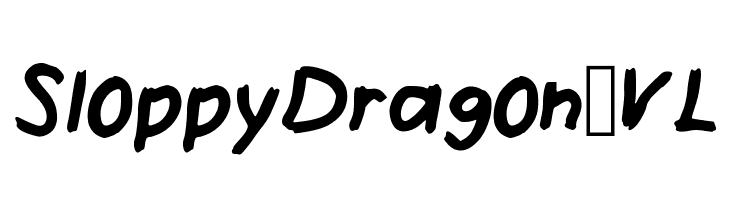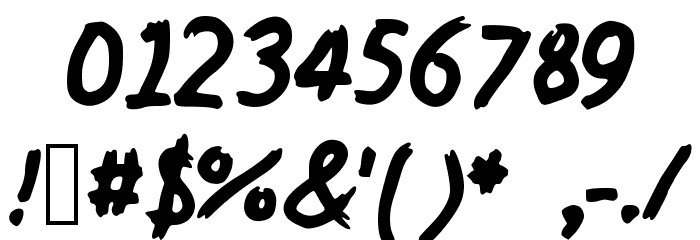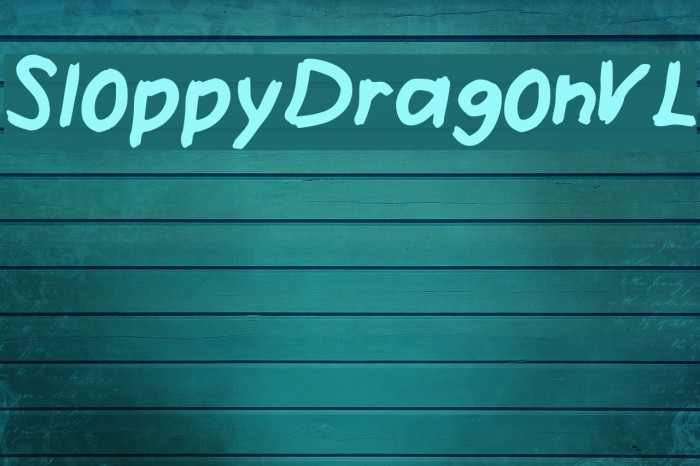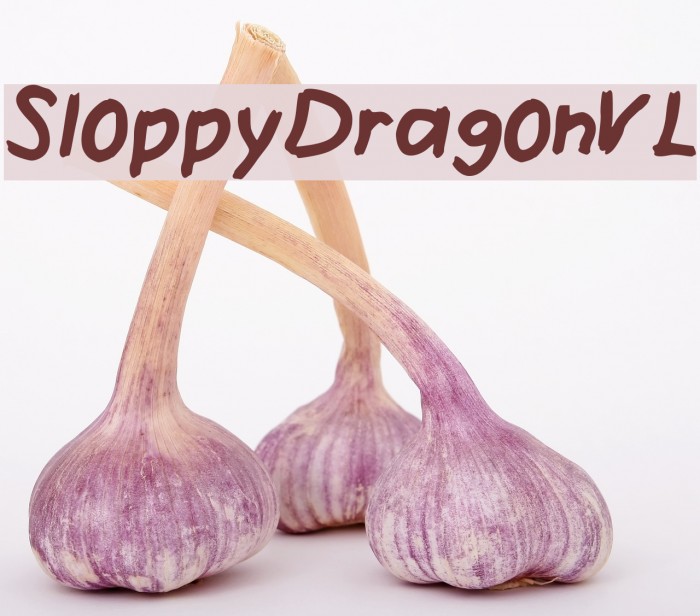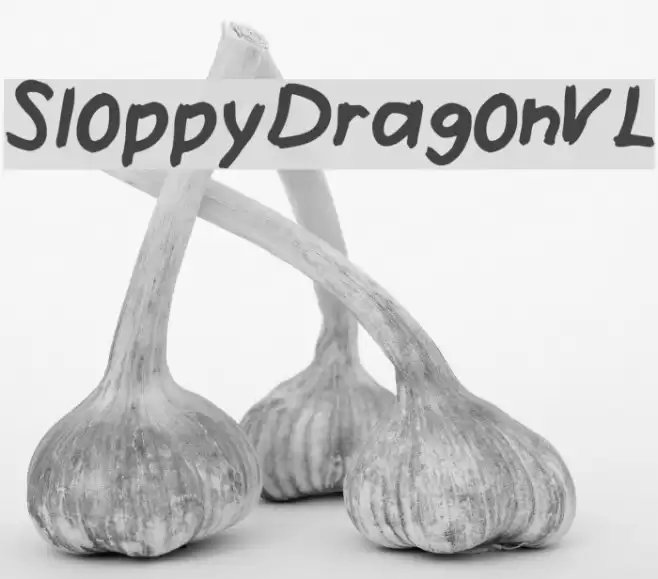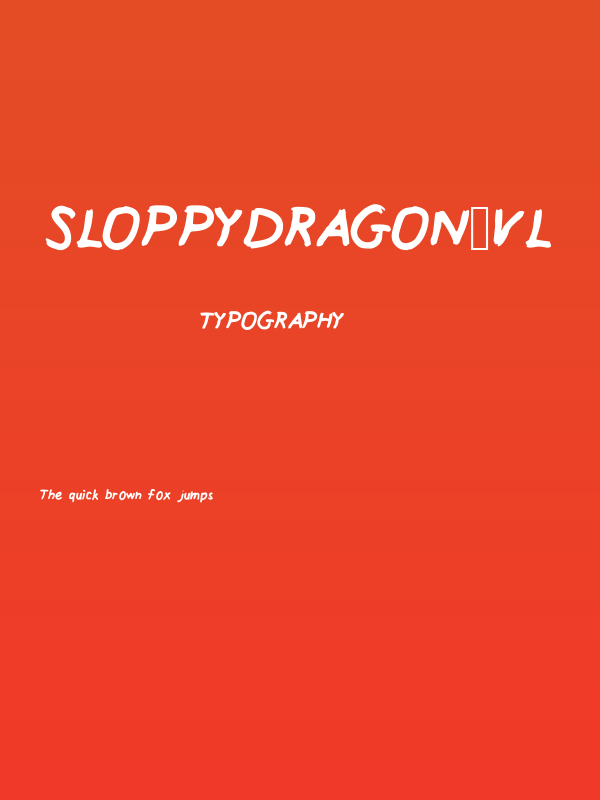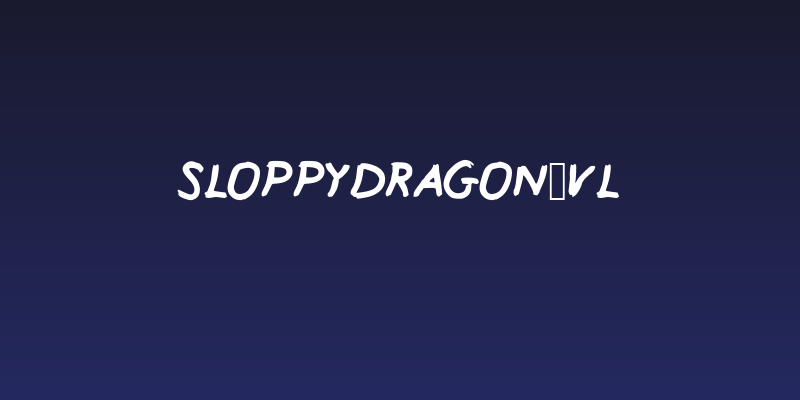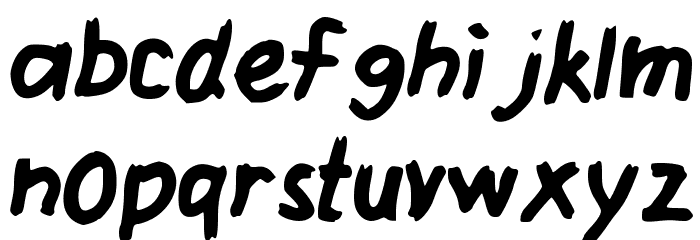
SloppyDragon_VL Font
SloppyDragon_VL Description
This font exhibits a playful and dynamic handwritten style, characterized by its bold and slightly irregular strokes. The letters have a casual, informal appearance, with a sense of movement and energy. The uppercase and lowercase letters maintain a consistent style, with rounded edges and varying stroke widths that add to its lively feel. The numerals and special characters follow the same aesthetic, ensuring a cohesive look across all glyphs. This font is ideal for projects that require a personal touch or a fun, engaging visual element.
| Proposed Projects | Great for greeting cards, children's books, playful branding, and social media graphics. |